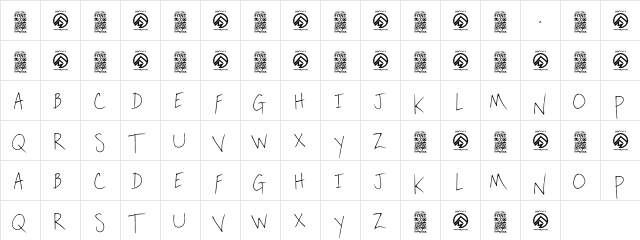
Oak Lawn Regular
| Designer | Font Monger (Gabriel Medal) |
Design Context for Oak Lawn Typeface
Oak Lawn is a composed and adaptable typeface that performs quietly and consistently across a wide range of design contexts.